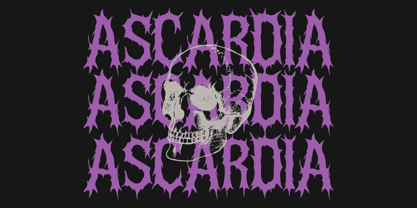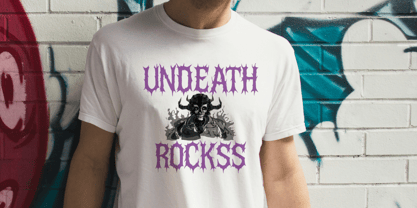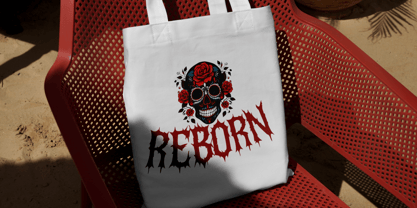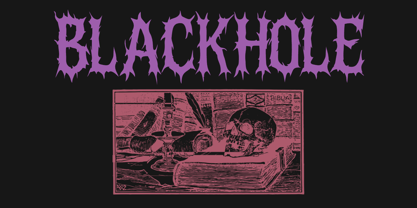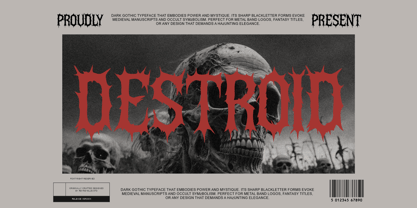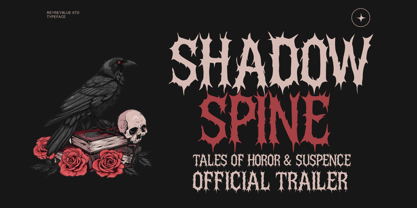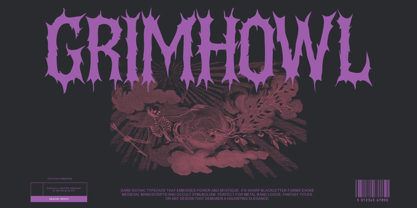
Grimhowl
The Grimhowl Font Family was designed by Nur Hasan and published by Reyrey Blue Std. Grimhowl contains 1 styles. More about this family
Grimhowl is an ALL CAPS gothic typeface meticulously crafted to deliver a powerful, dark, and dramatic visual impact. Featuring sharp, spiked letterforms inspired by modern blackletter, dark fantasy art, and occult engravings, this typeface evokes mystery, intensity, and atmospheric depth. Each character possesses a bold and haunting presence, making it ideal for extreme and expressive design projects. Perfect for: - Metal and rock band logos - Album titles, posters, and concert artwork - Horror or dark fantasy covers - Edgy streetwear branding and merchandise - Any design that requires strong, fierce, and striking typography Built entirely in ALL CAPS, Grimhowl ensures visual consistency and a commanding tone. Its textured, jagged shapes maintain high readability while preserving a brutal and enigmatic aesthetic—whether used at large display sizes or smaller headline settings. This typeface is perfect for creating impactful branding, captivating editorial designs, and immersive visual storytelling. Grimhowl is more than just a typeface—it’s a bold identity that brings dark elegance, occult energy, and powerful visual storytelling to any design it touches.